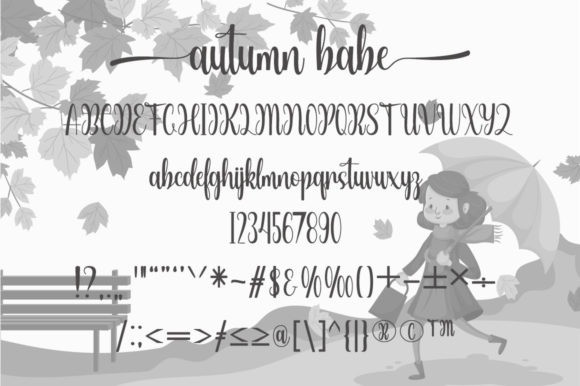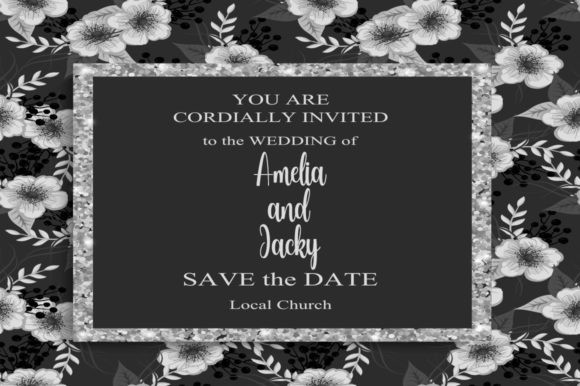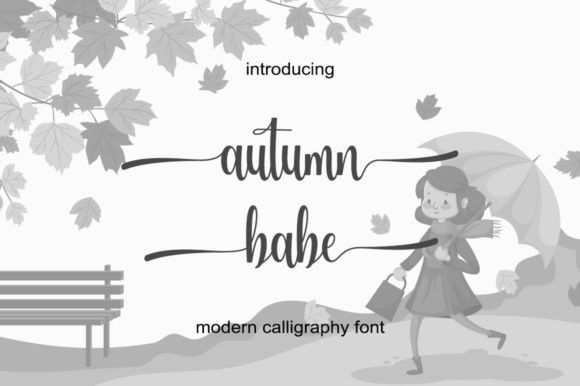
Autumn Babe Font
Autumn Babe Calligraphy Font is a romantic and sweet calligraphy typeface with characters that dance along the baseline. It will add a luxury spark to any design project that you wish to create! Autumn Babe is PUA encoded which means you can access all of the glyphs and swashes with ease!